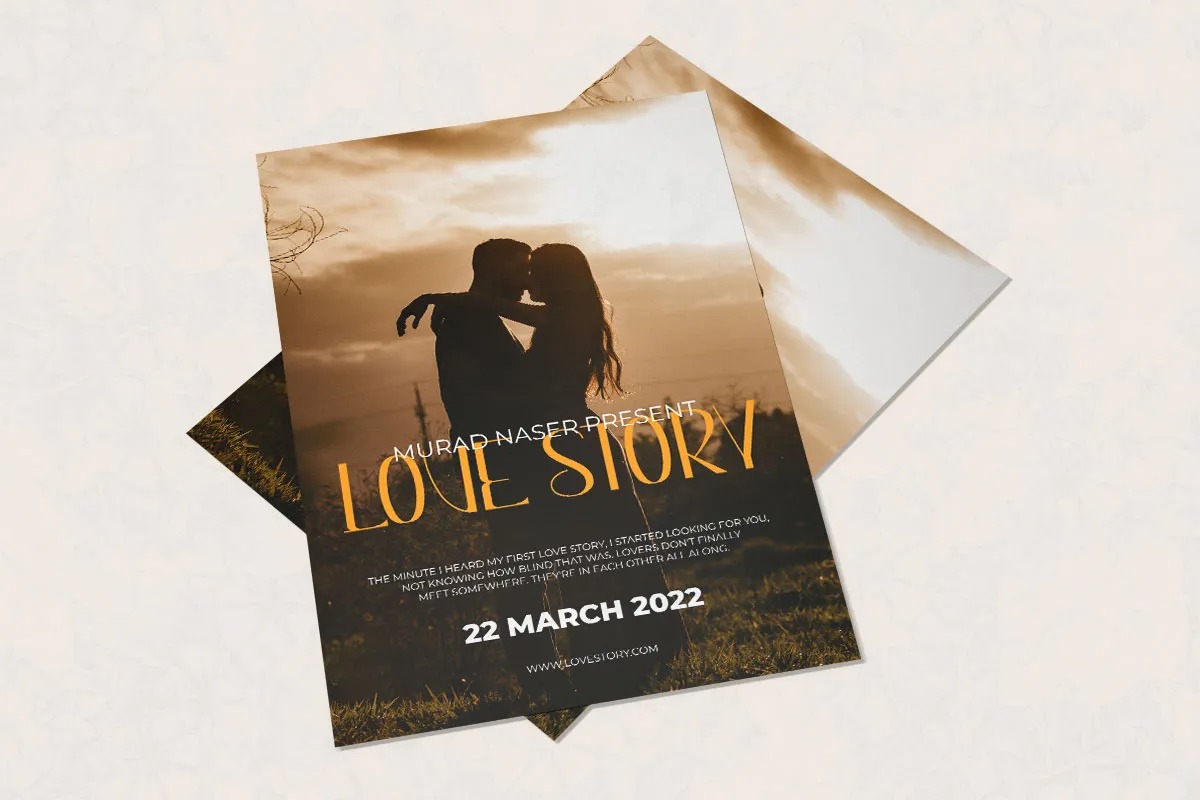
Biodiversity Sans Serif Font
This is a sans serif font inspired by fonts from the turn of the 70s/80s with a slight dose of imperfection. It can easily be matched to an incredibly large set of projects, so add it to your creative ideas and notice how it makes them stand out! Is great for text, headers, web, logos, brandings and more.